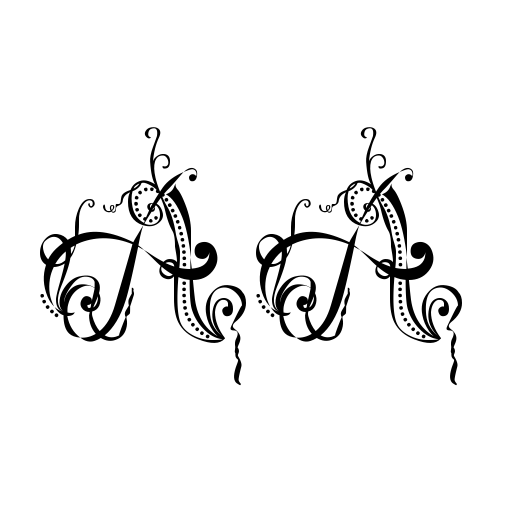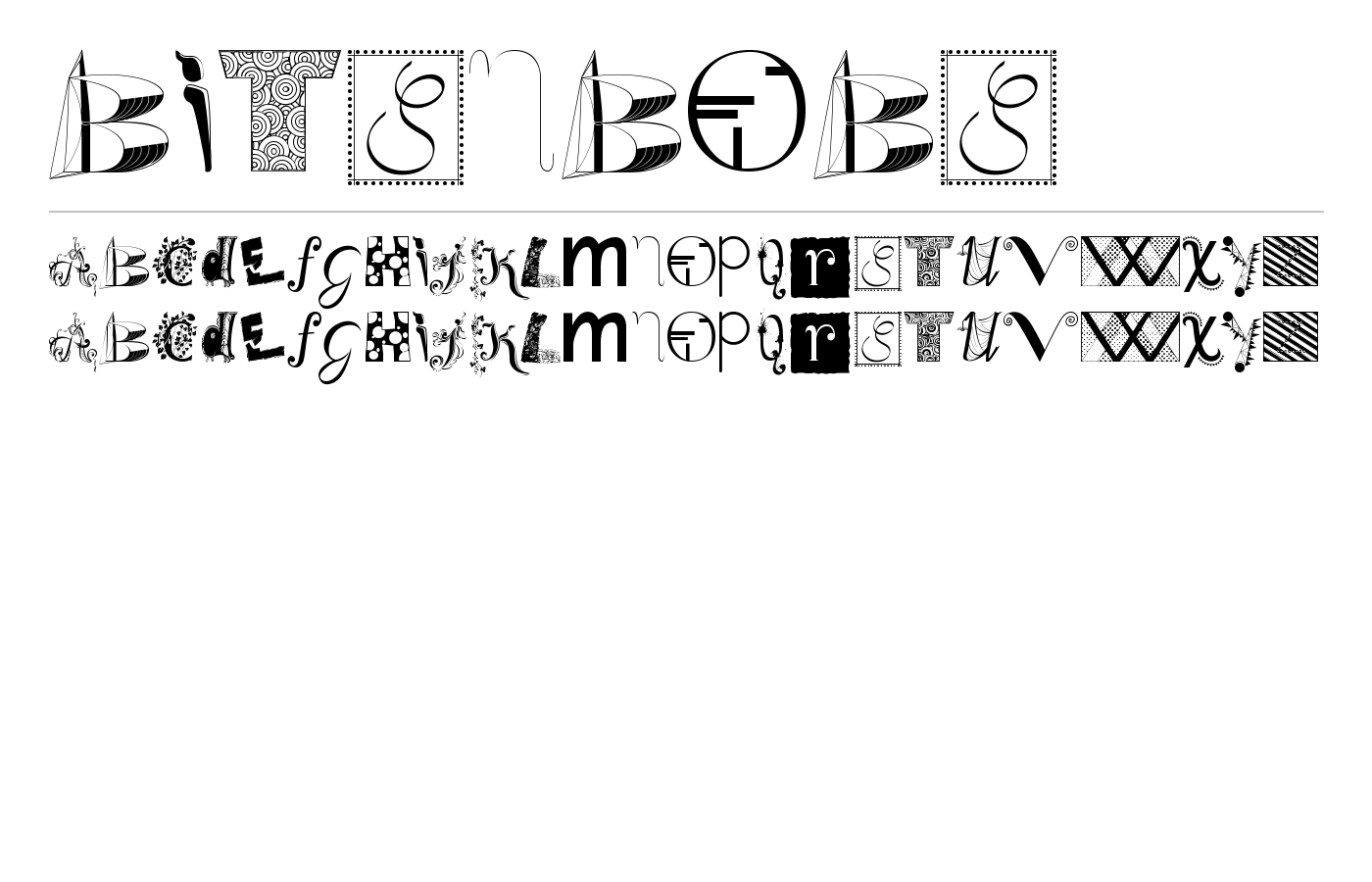
BitsNBobs is a highly decorative and eclectic display font that combines an array of artistic styles within each character, making it unique and eye-catching. With its bold contrast, intricate patterns, and whimsical shapes, it brings a playful yet sophisticated feel, perfect for creative projects like logos, posters, and artistic branding where a standout, unconventional look is desired. This font shines best in large sizes, adding personality and flair rather than serving for body text or small print.
BitsNBobs Font
About BitsNBobs Font